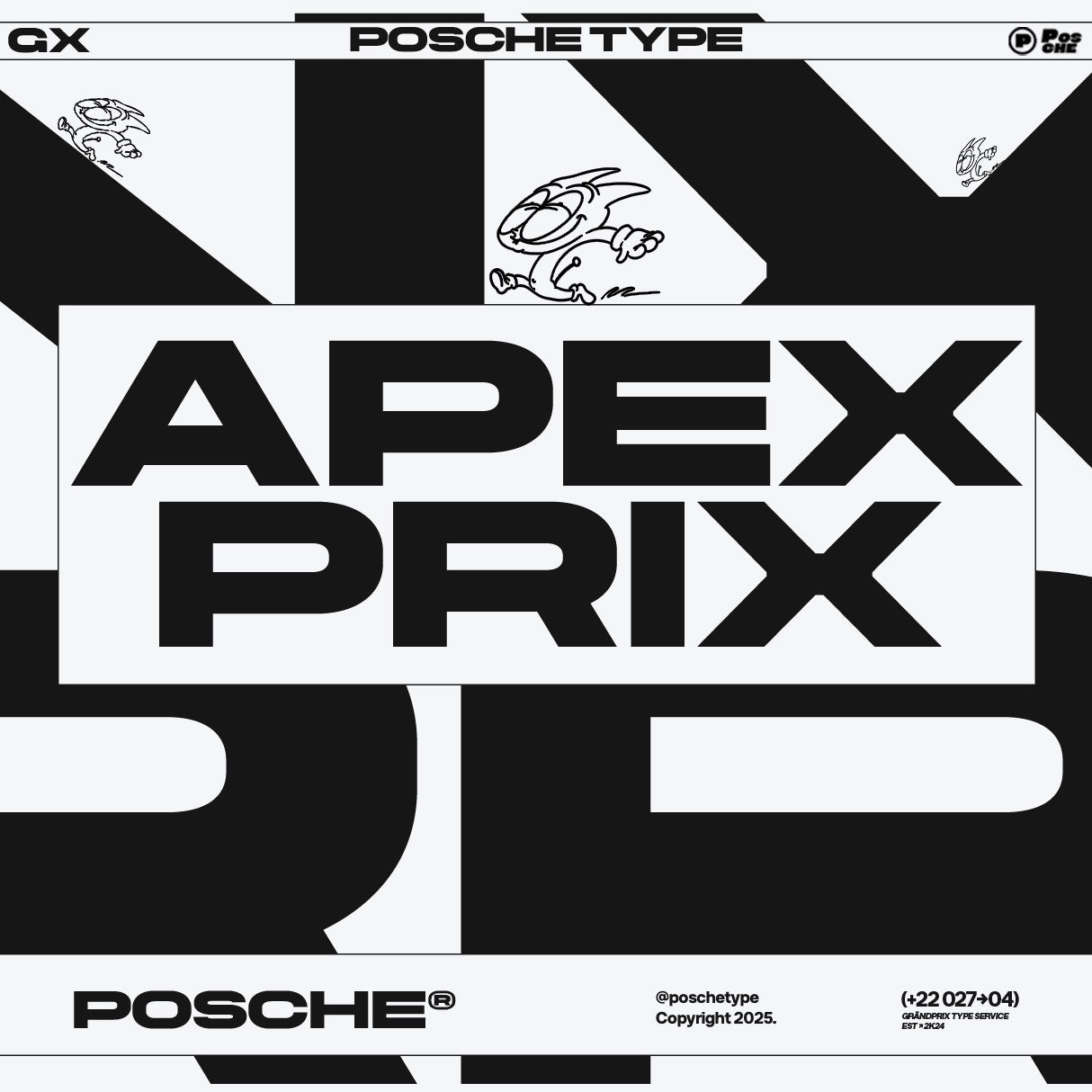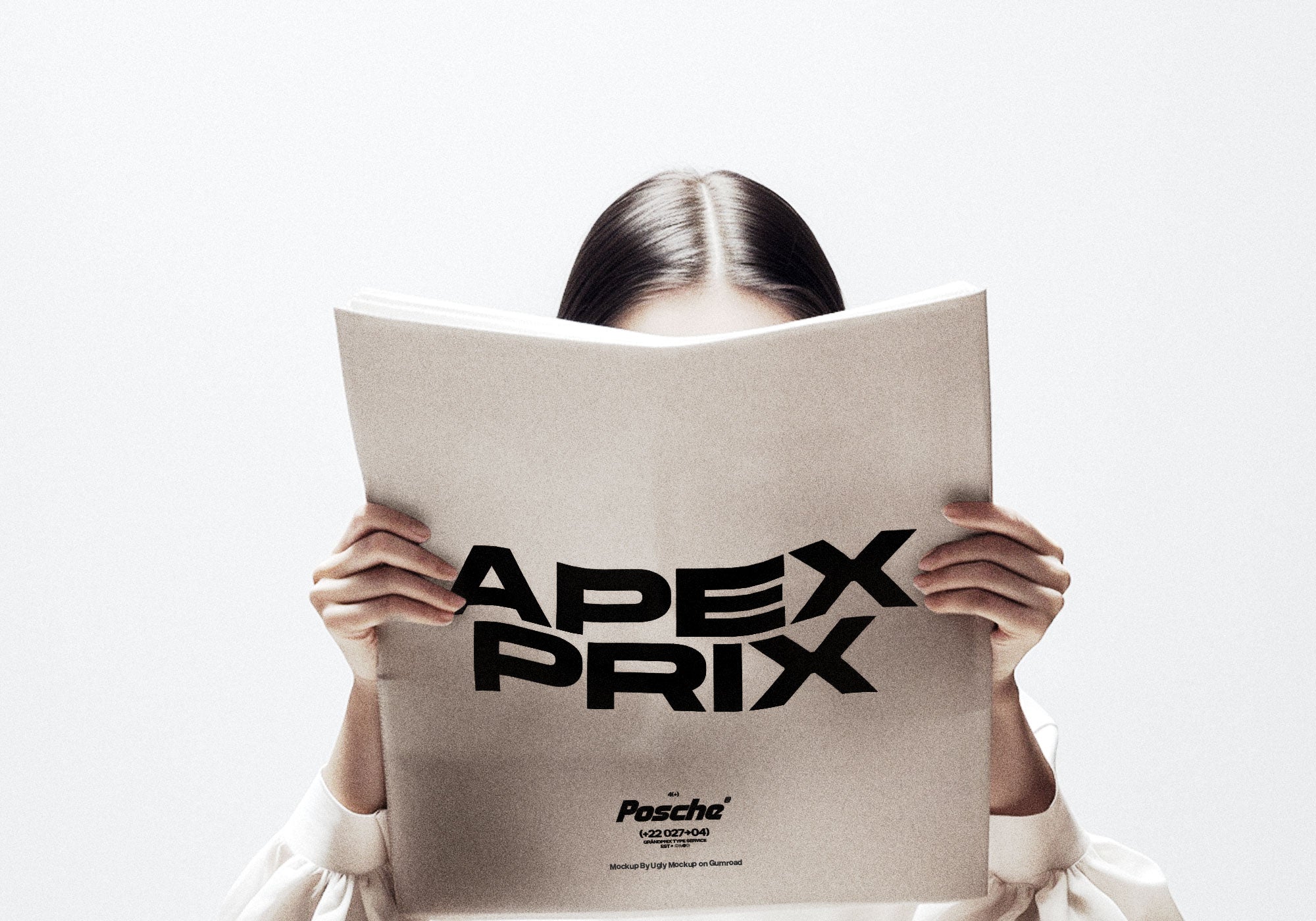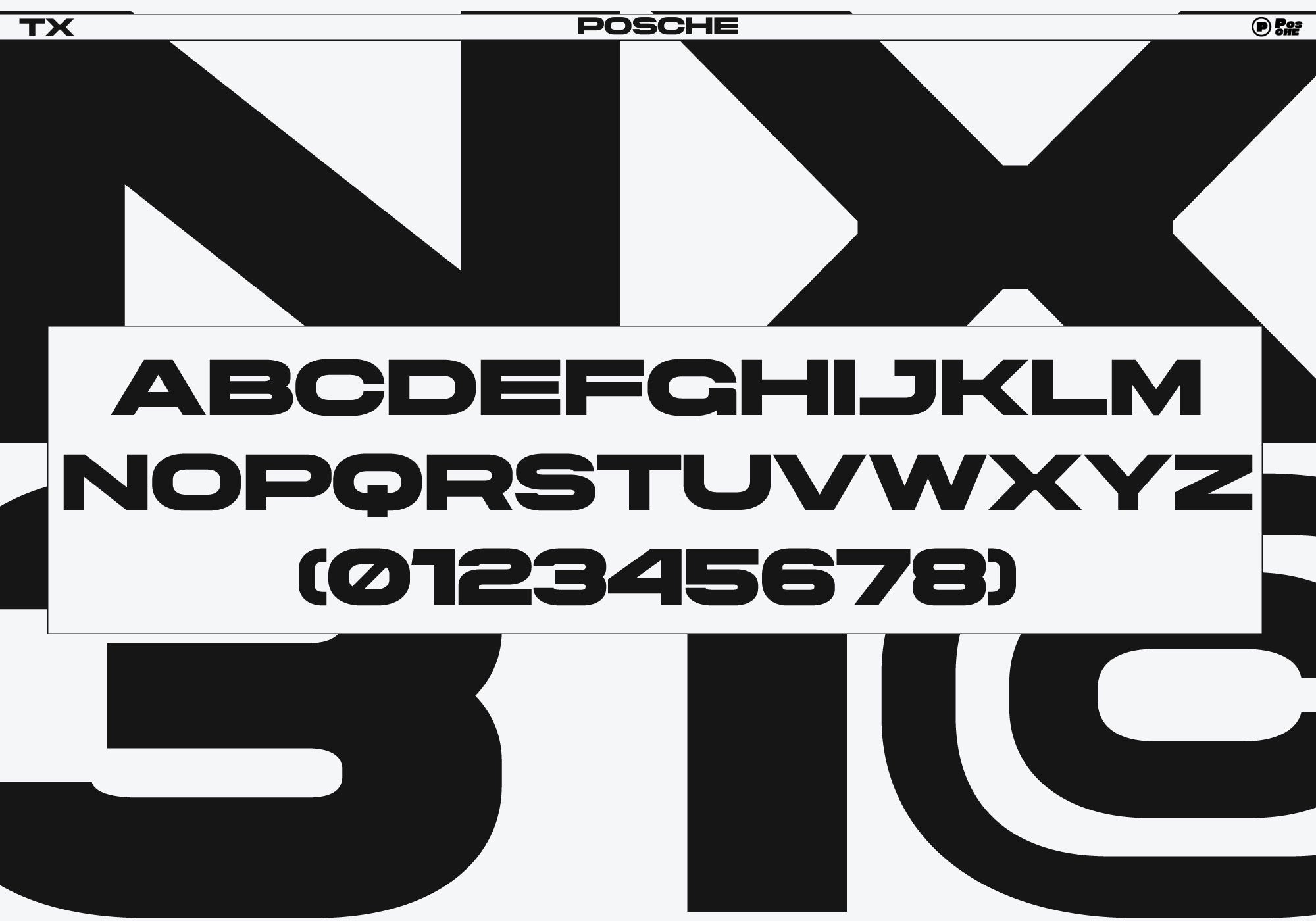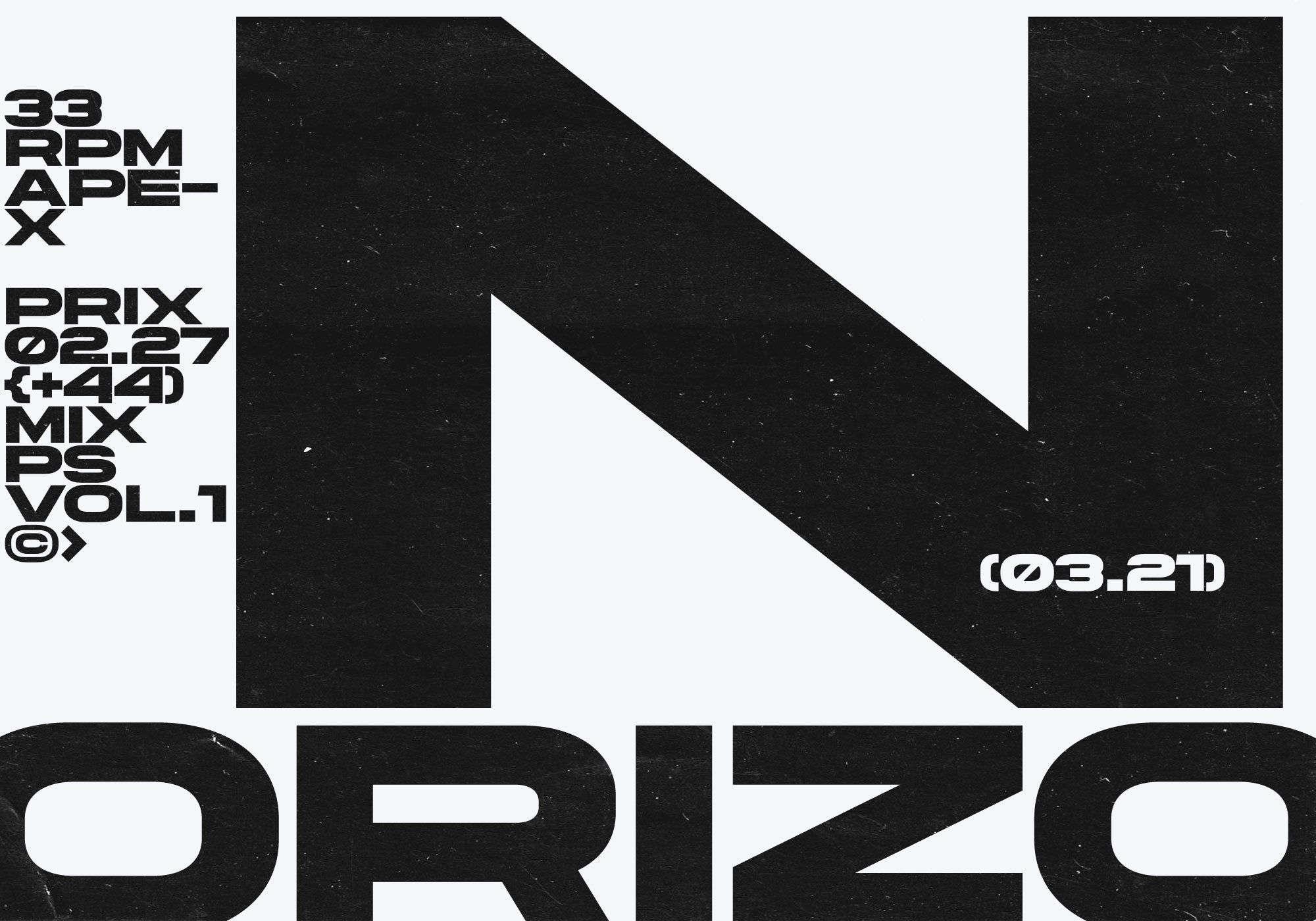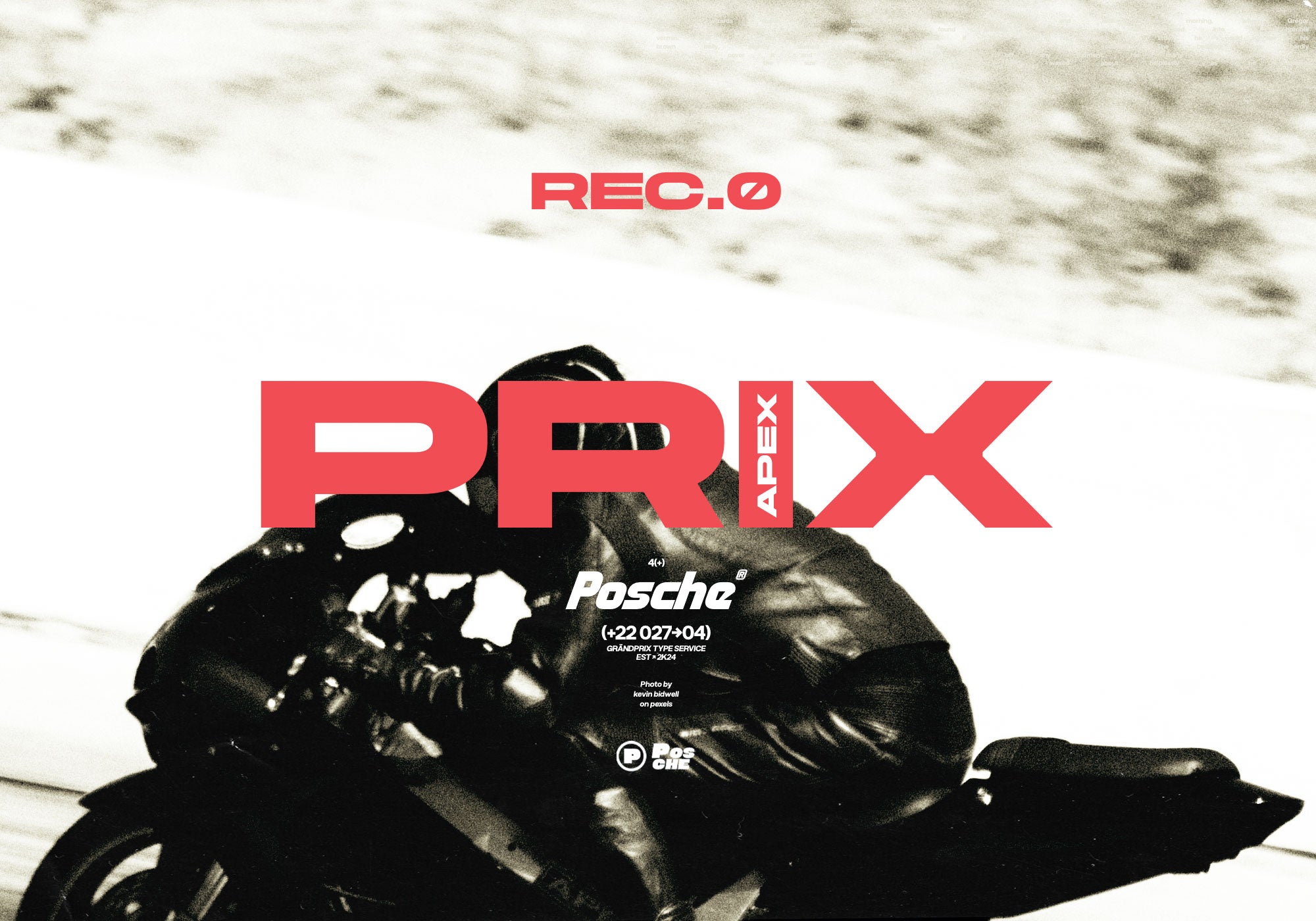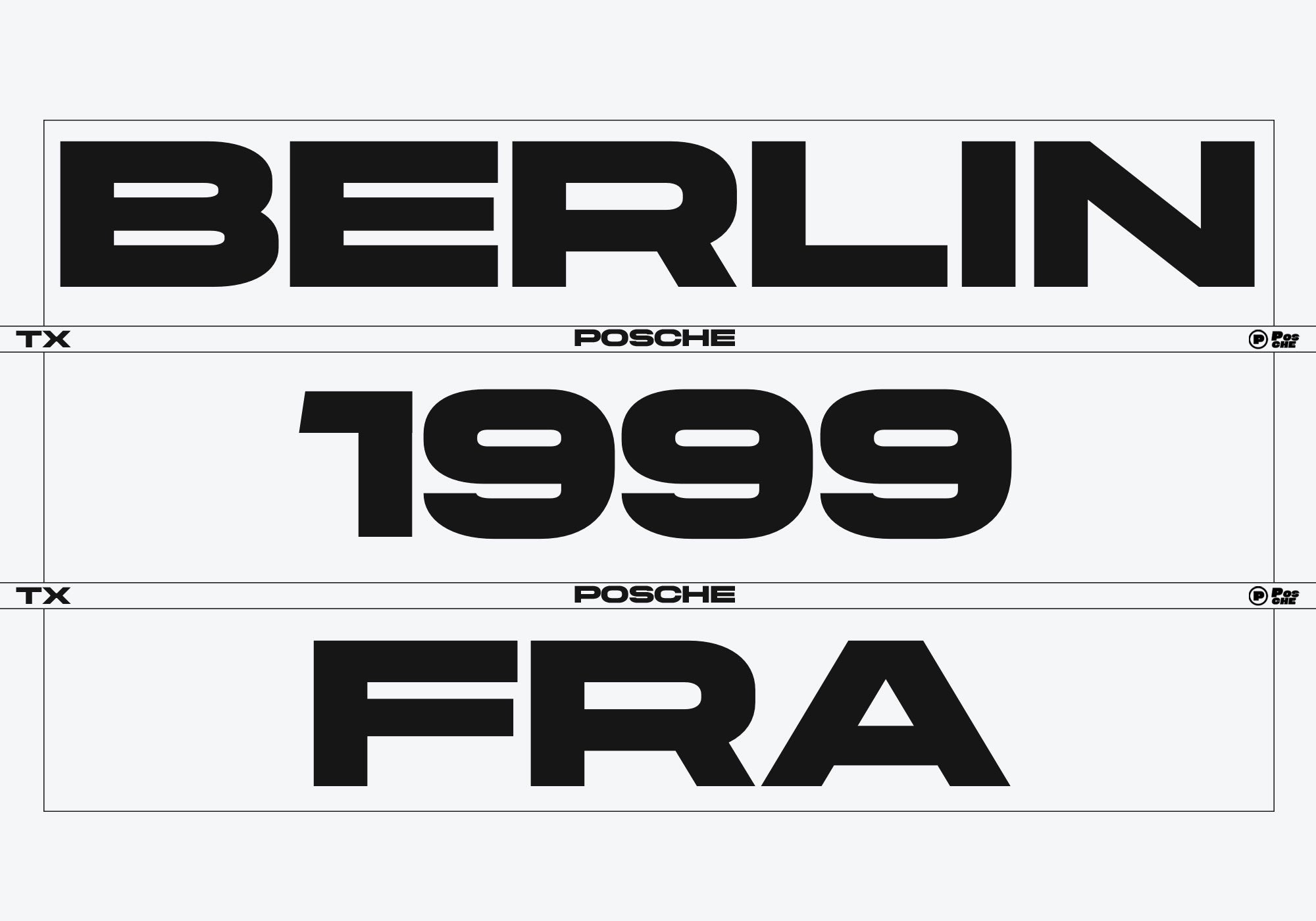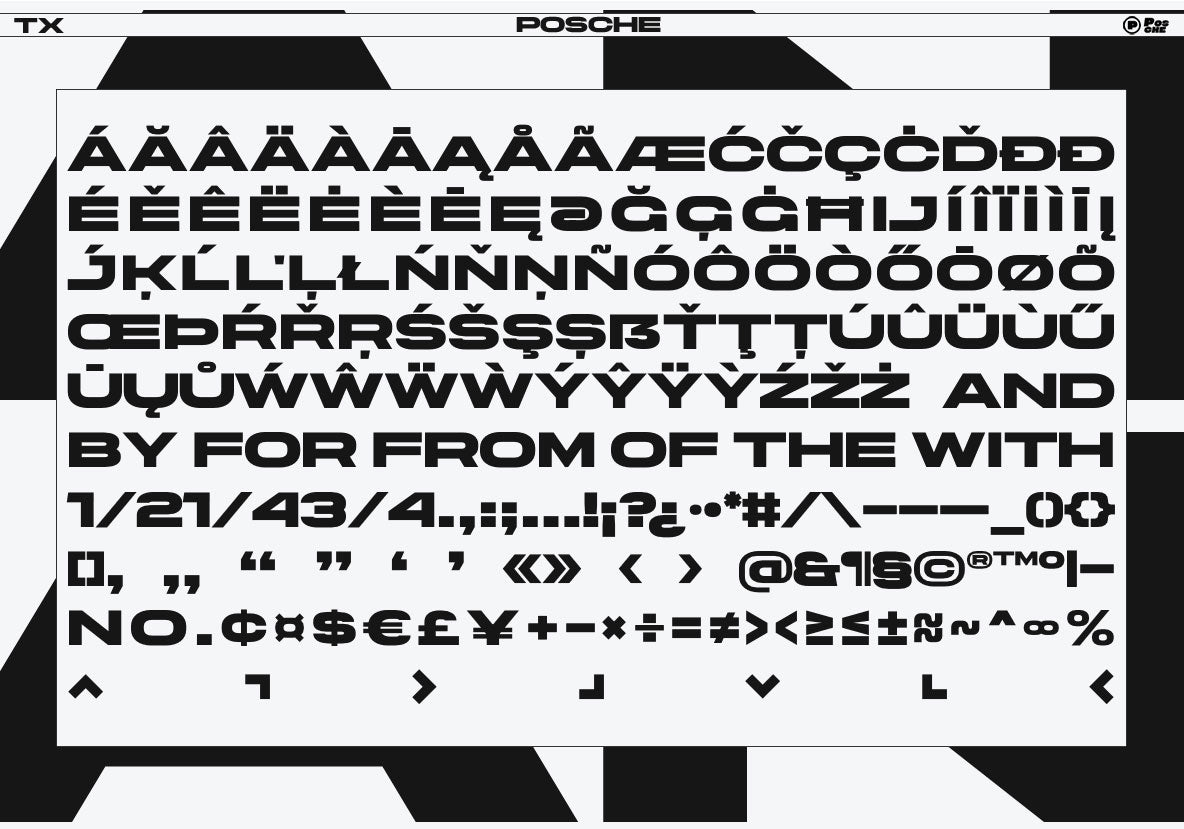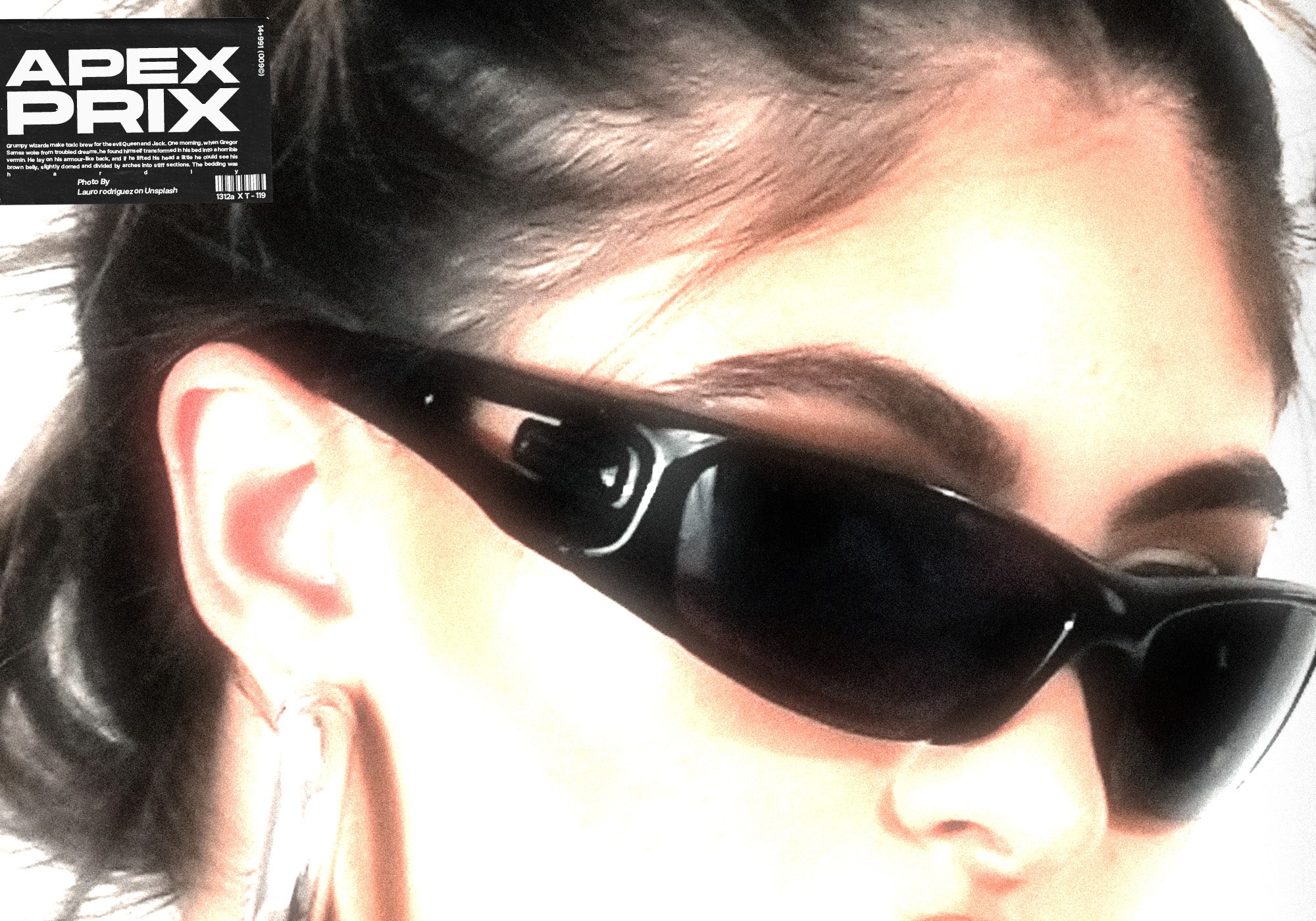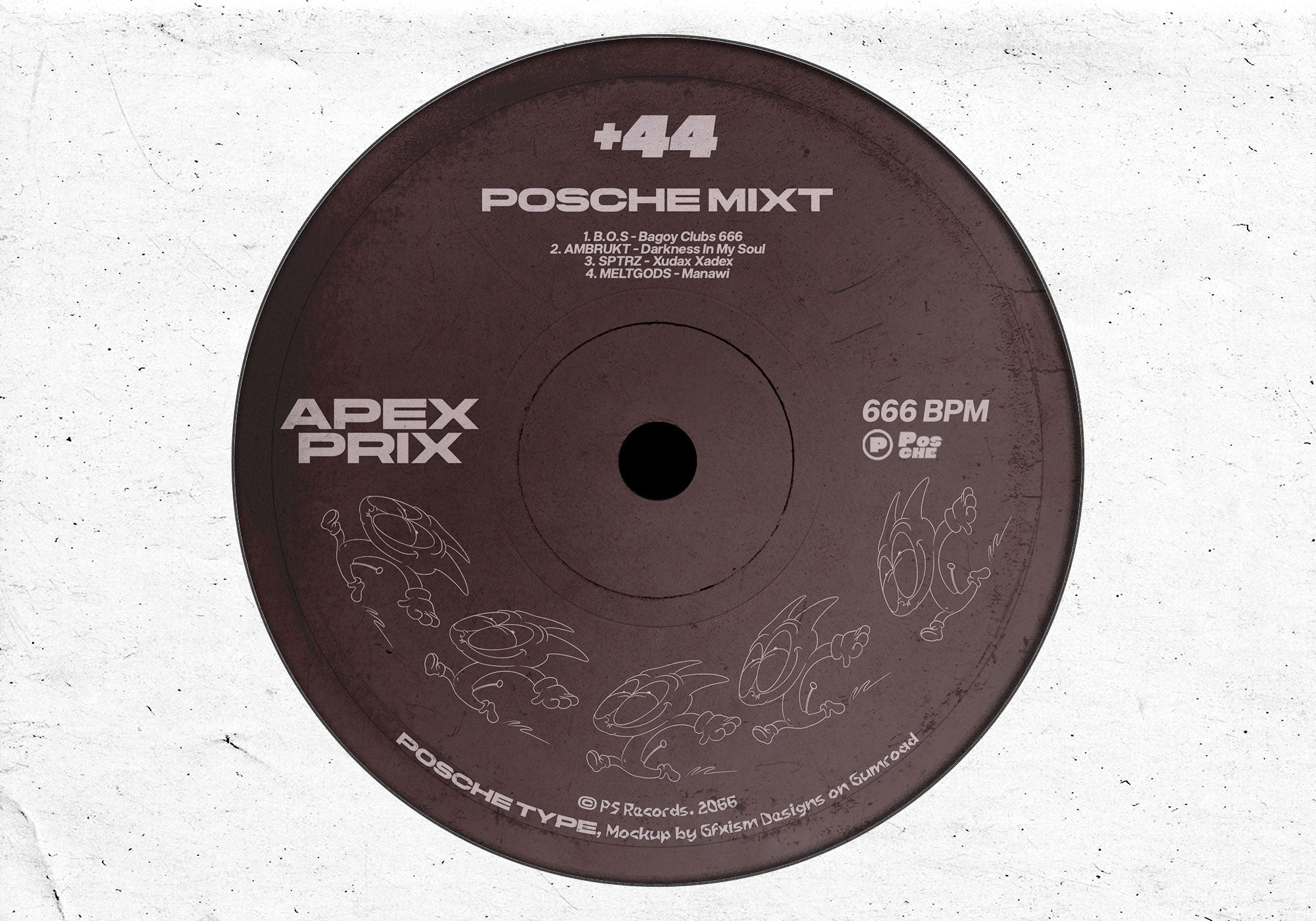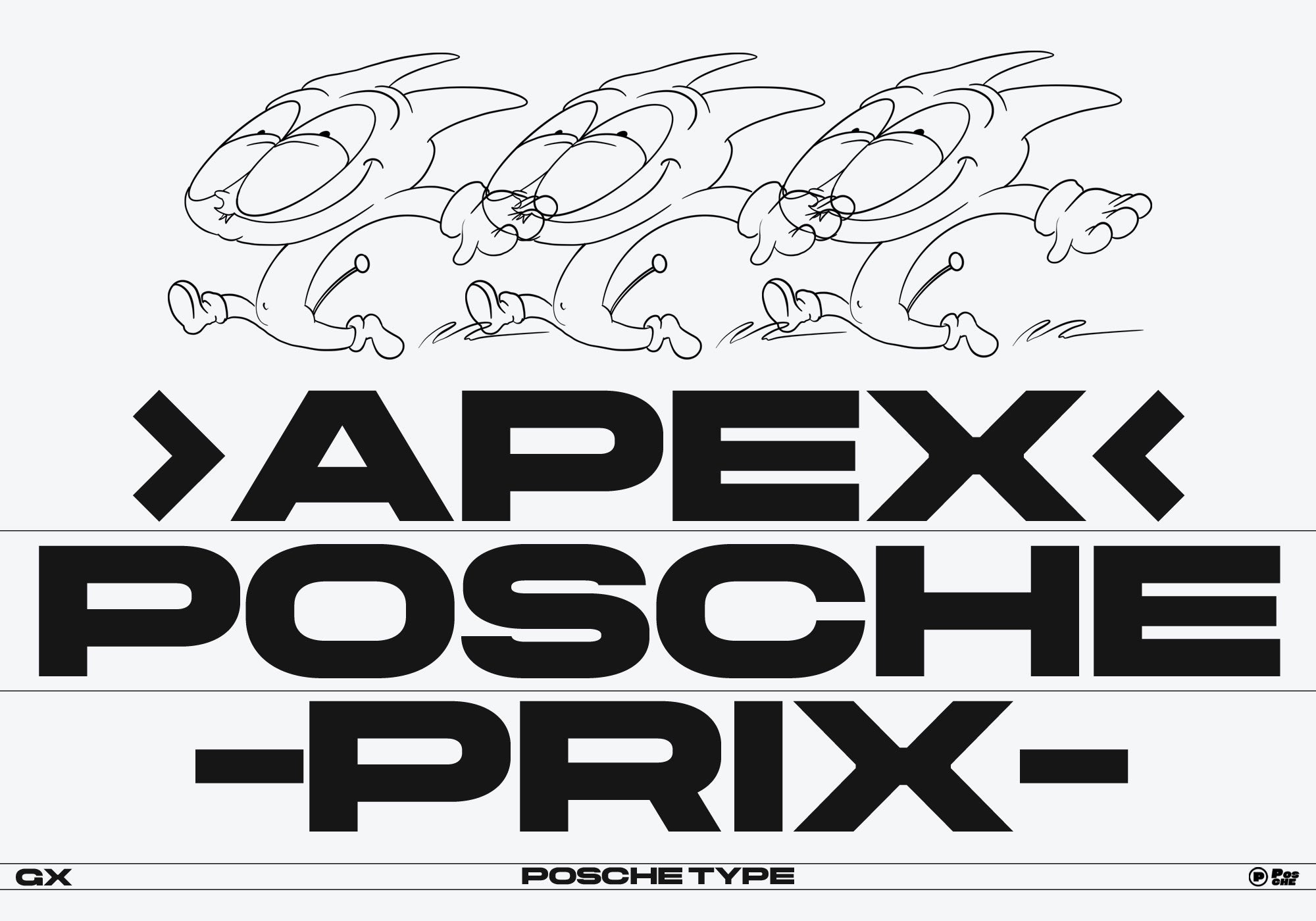
PS Apex Prix | Typeface Display
The PS Apex Prix is a sans-serif typeface characterized by its over-width style, offering a simple and bold visual presence. It is designed for various design elements and is complemented by supporting fonts PS Clubs, PS Rismo, and PS Chonk from Posche.
Ideal for contemporary graphic design and branding projects. Perfect for posters, film credits, and bold headlines, ensuring a visually striking and modern aesthetic.